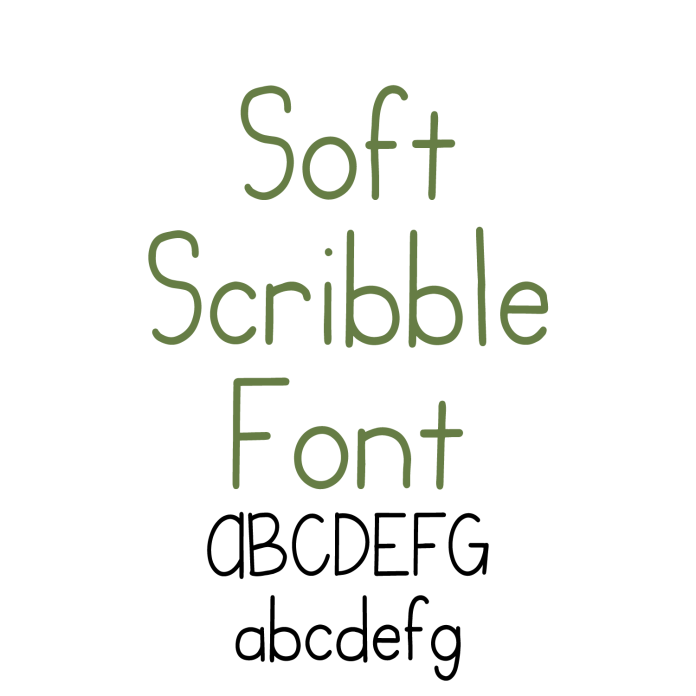
Soft Scribble Font is a playful handwritten sans serif font perfect for adding a fun, casual touch to your creative projects. With its smooth, slightly uneven lines, this font brings a relaxed and friendly feel to every design. Great for DIY crafts, labels, planner stickers, classroom signs, greeting cards, kids’ projects, and more. Includes uppercase and lowercase letters with easy-to-read characters that work well in both small and large sizes. This font is ideal for cutting machines and works beautifully in vinyl, HTV, paper crafts, and print & cut designs. Add personality to your projects with Soft Scribble Font today!